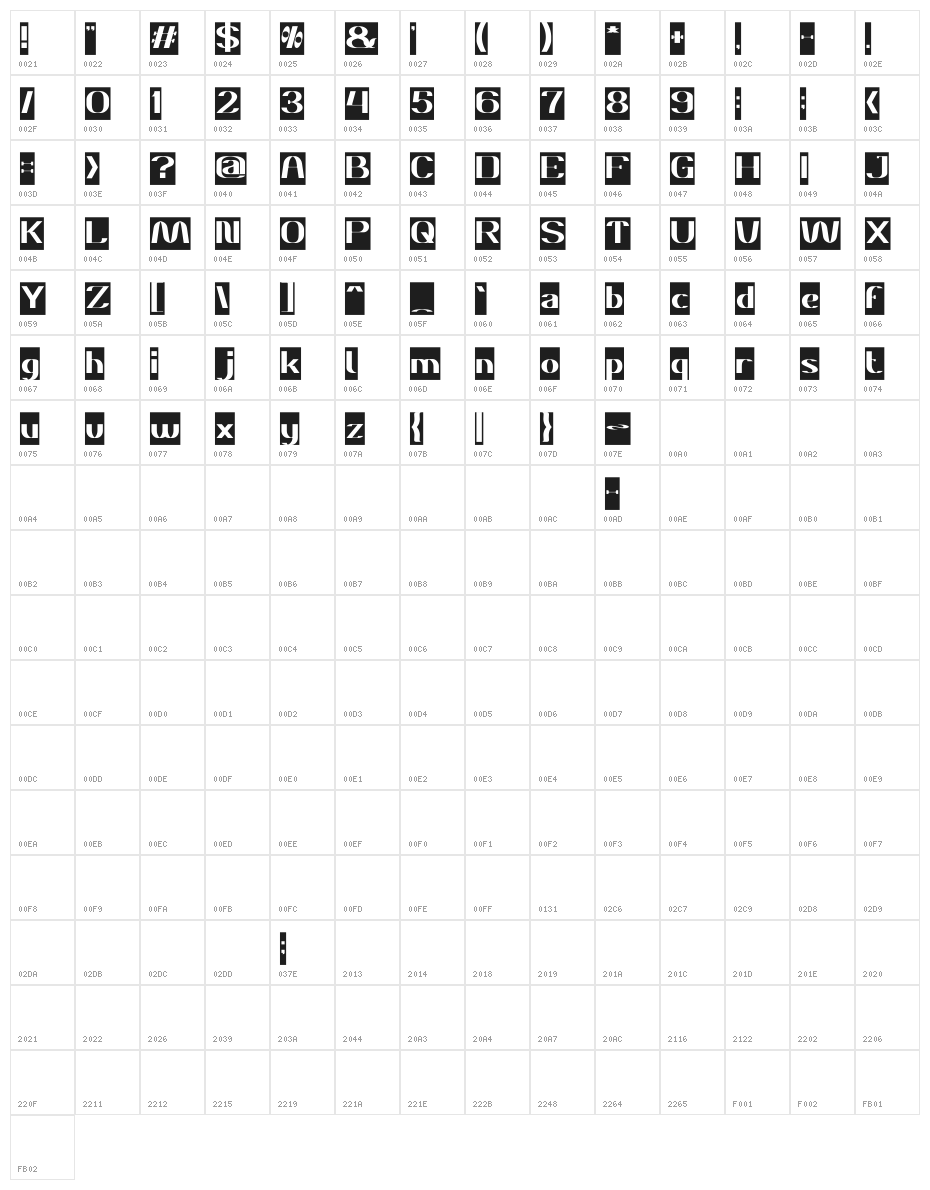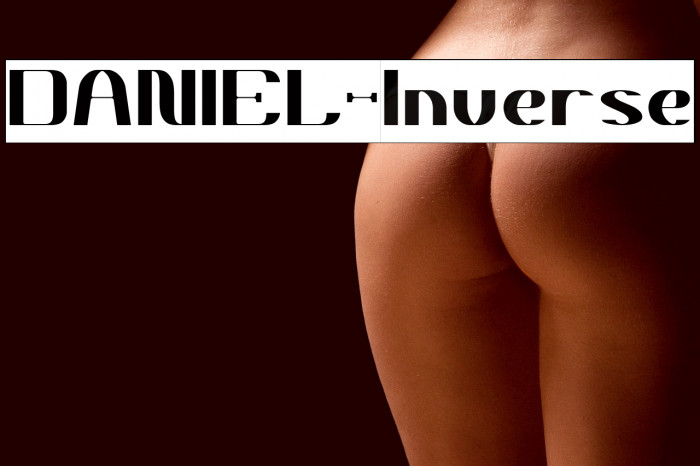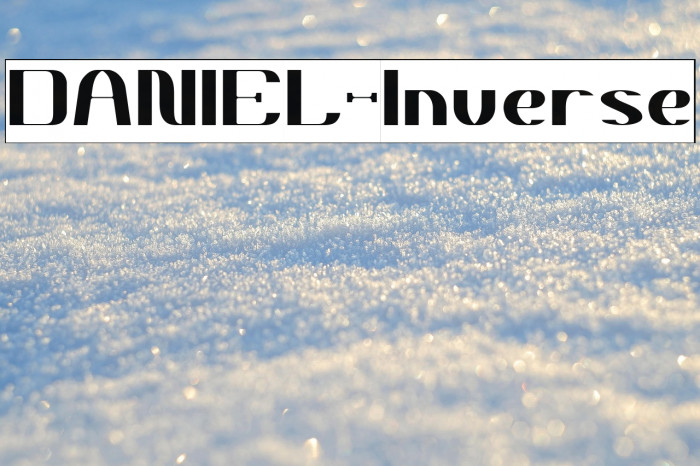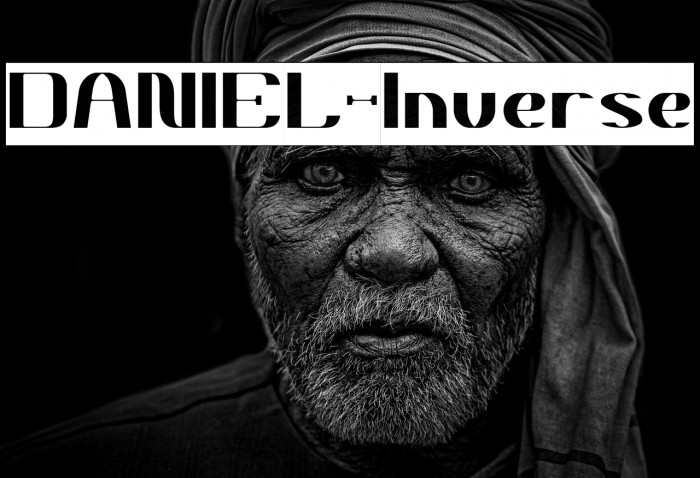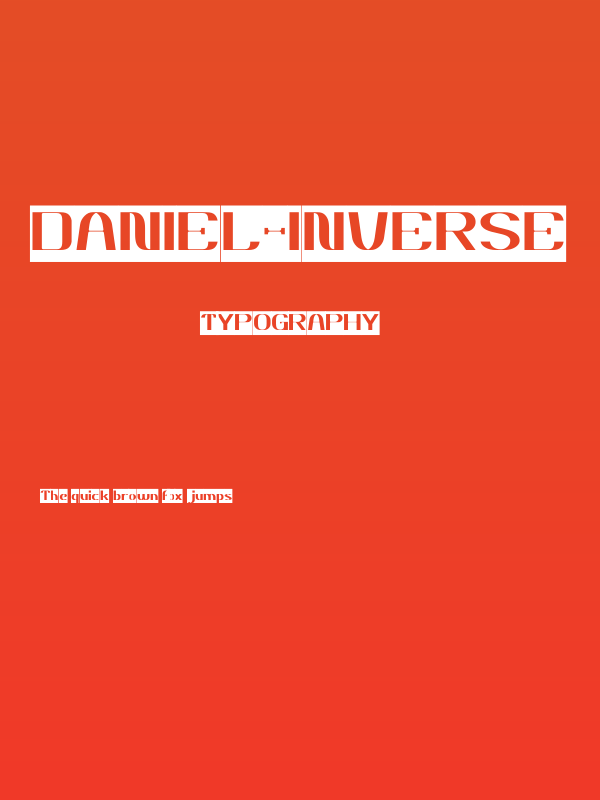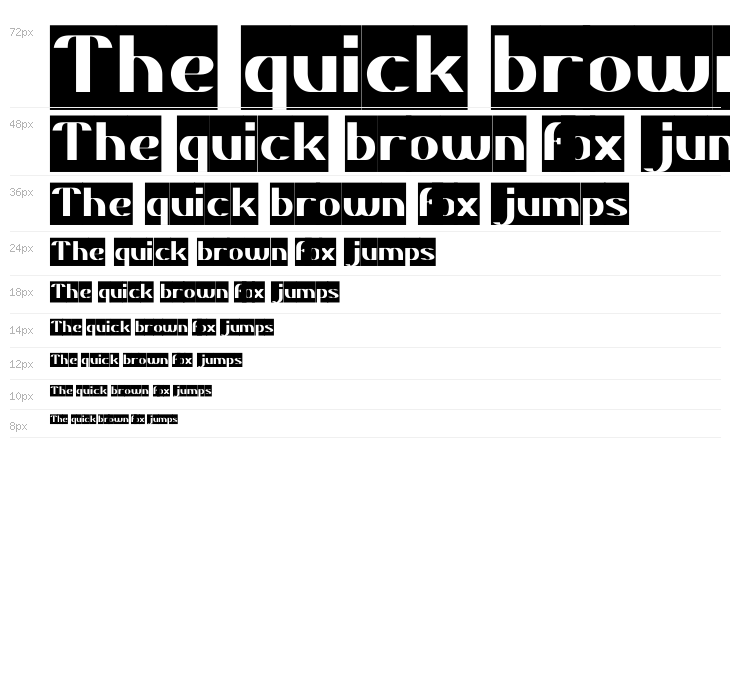
DANIEL-Inverse Font
DANIEL-Inverse Description
This font features a bold and striking design with a modern twist. The characters are crafted with a unique inverse style, where the negative space plays a significant role in defining the letterforms. The uppercase letters are particularly distinctive, with sharp angles and a dynamic flow that captures attention. The lowercase letters maintain a consistent style, offering a harmonious balance with the uppercase. Numbers and special characters are designed with the same boldness, ensuring uniformity across all elements. This font's high contrast and geometric shapes make it ideal for impactful visual statements.
| Proposed Projects | Ideal for branding, advertising, poster design, and any project requiring a strong visual impact. |